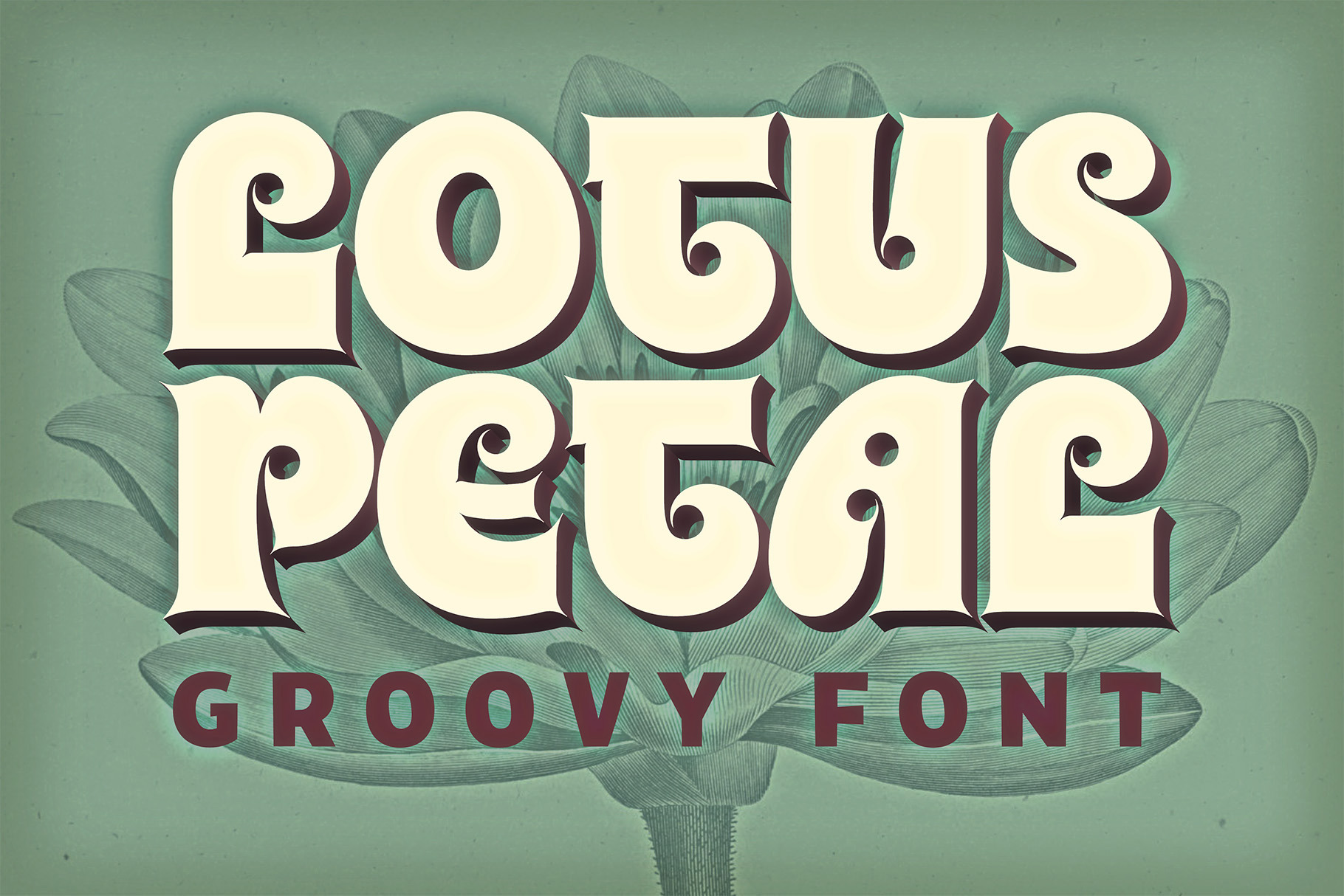
Lotus Petal Font
LOTUS PETAL MODERN PSYCHEDELIC FONT
With firm roots in the groovy '60s and '70s — but with a modern twist — Lotus Petal is all whimsical and funky lines, coils, and curls. Just the right vibe for a vintage eye-catching banner headline or retro psychedelic poster graphics.